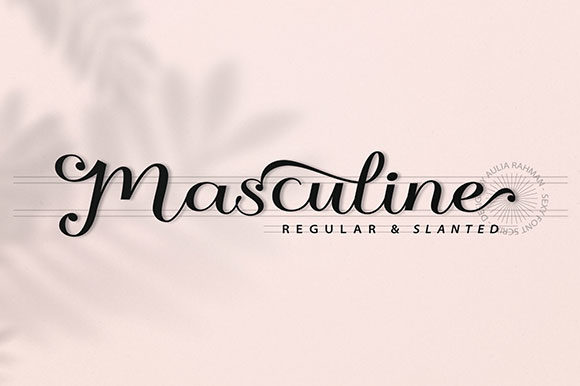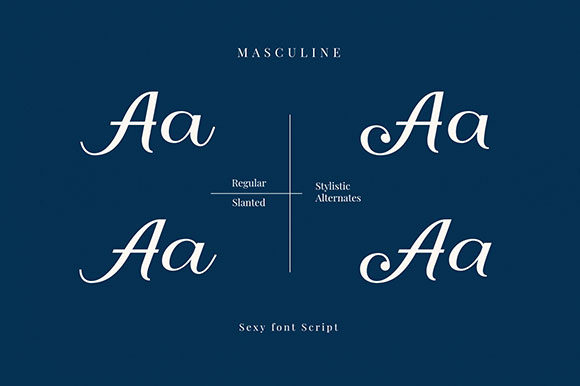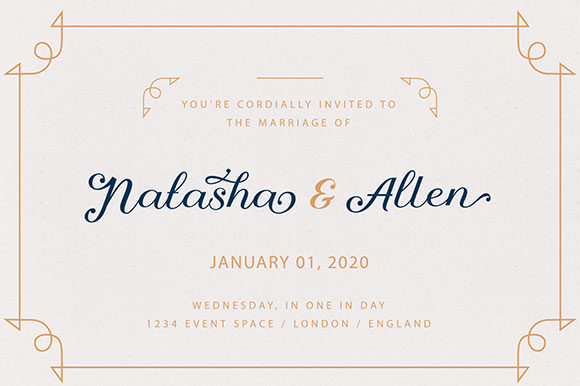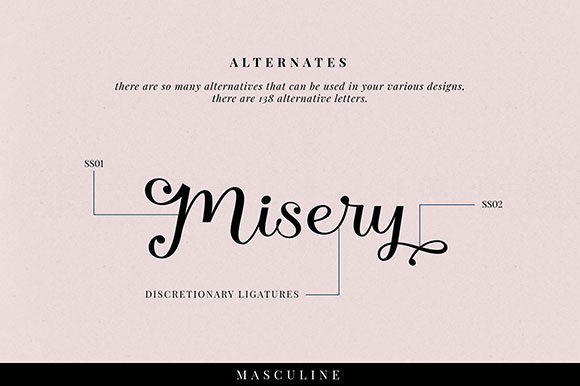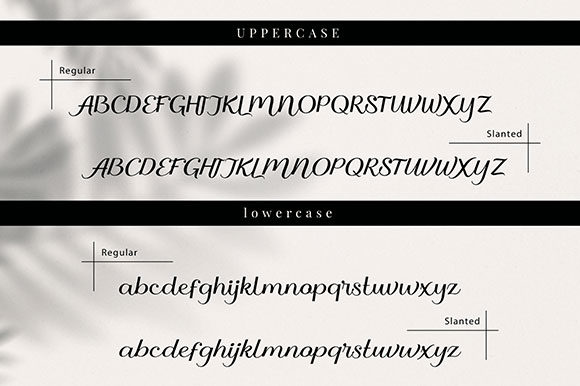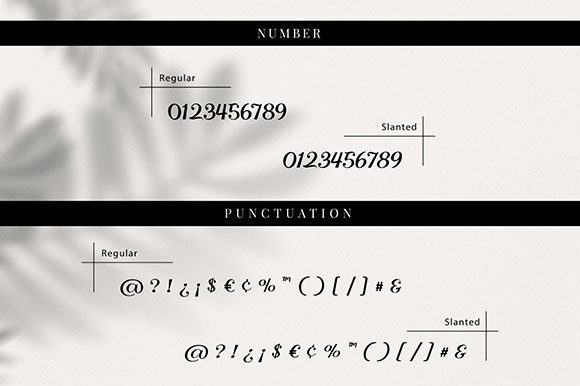
Masculine Font
About Masculine Font
Masculine is a cool handwritten font carefully handcrafted to become a true favorite! It features an incredibly classic style, while still keeping a friendly feel. Masculine is the perfect font for making original and outstanding designs.